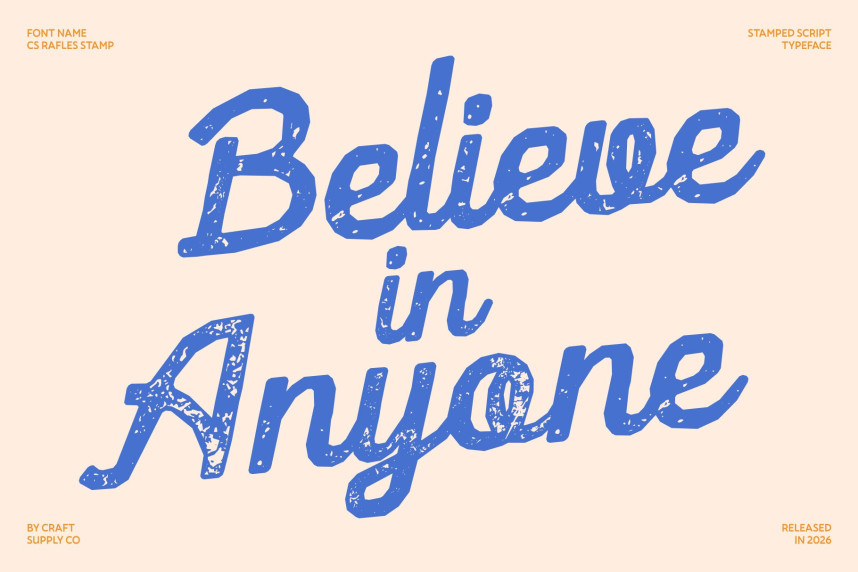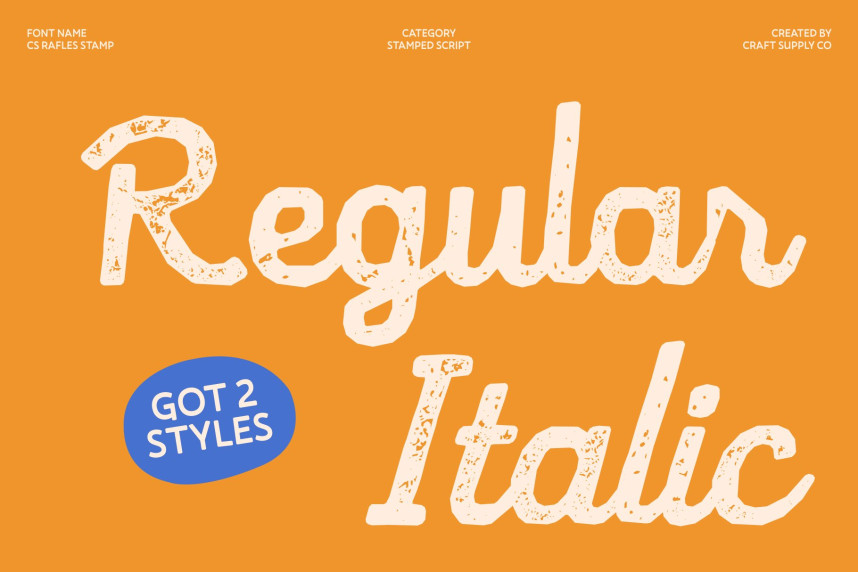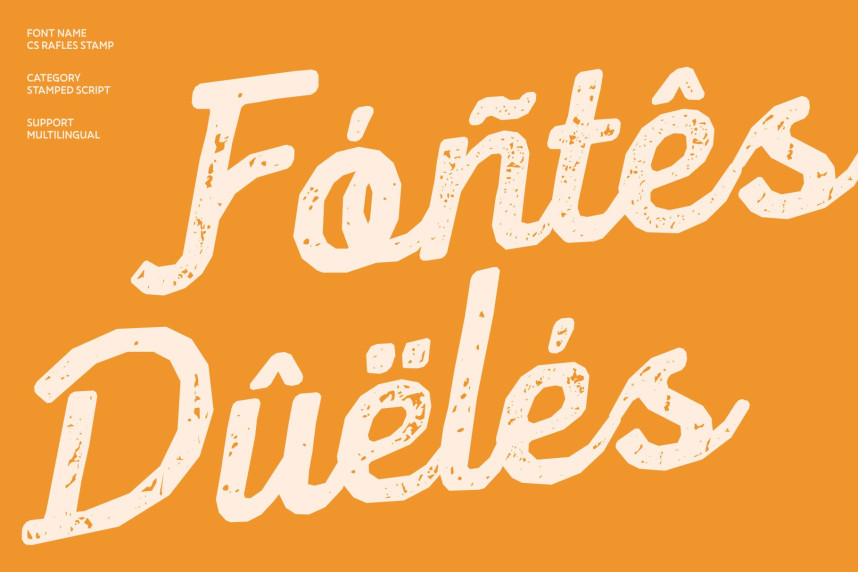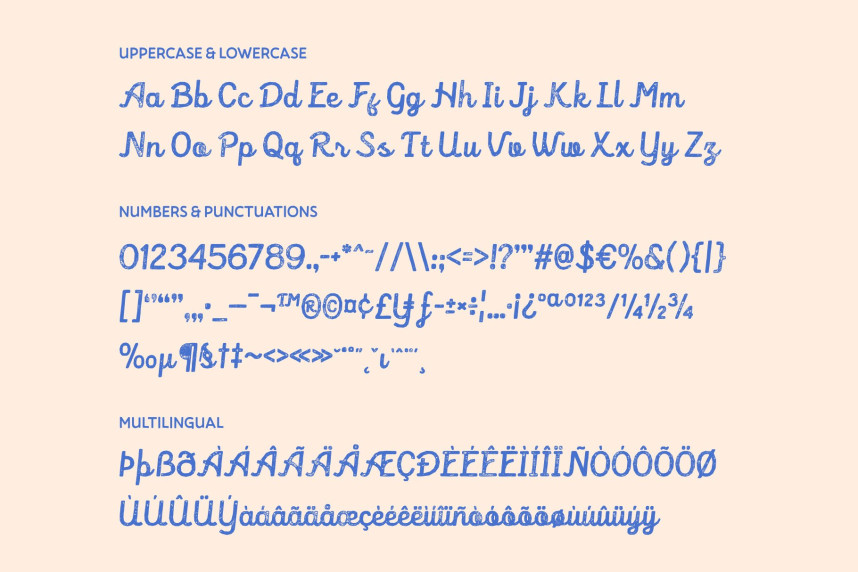
CS Rafles Stamp Font
CS Rafles Stamp Font – Modern Script Font: Where Timeless Elegance Meets Vintage Charm
Smooth Flowing Cursive with Decorative Grace
This is a modern script font that showcases smooth flowing cursive letterforms designed to evoke elegance, refinement, and charm. Its graceful strokes and decorative flourishes create a sophisticated visual rhythm filled with warmth and timeless beauty. Every character feels expressive and handcrafted, making the font perfect for projects that seek a stylish and nostalgic atmosphere.